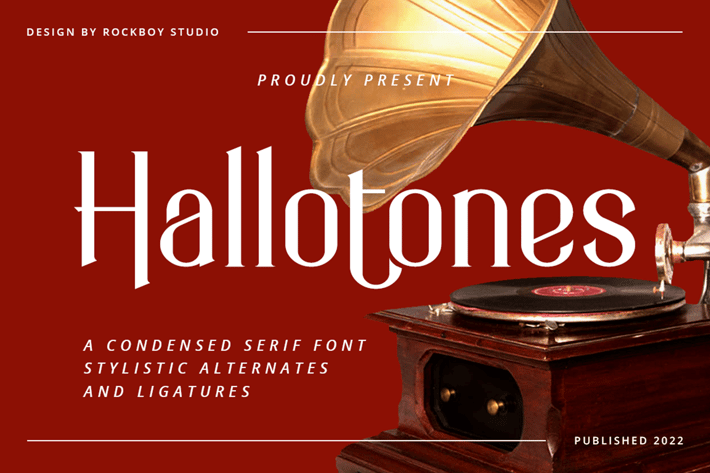
Hallotones - Logo Font
Hallotones is a distinct, bold, and authentic serif font. Masterfully designed to become a true favorite, this font has the potential to bring each of your creative ideas to the highest level!